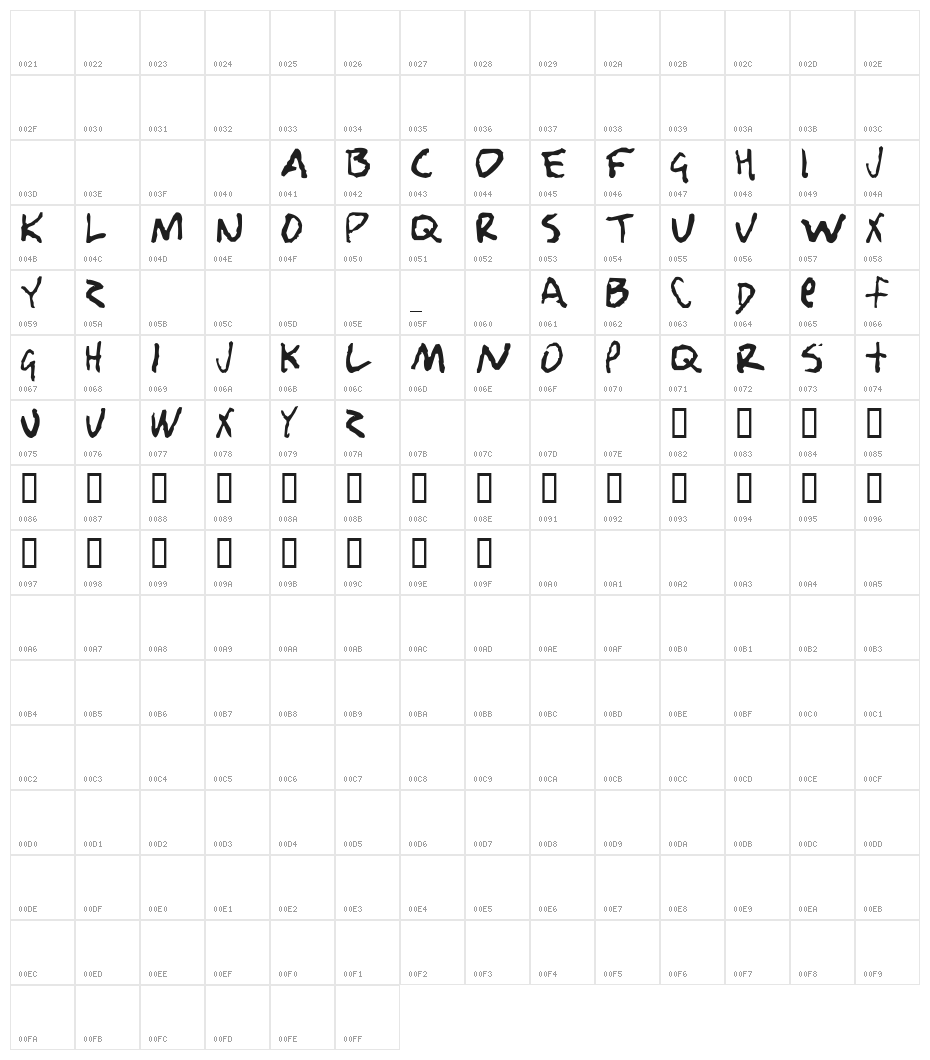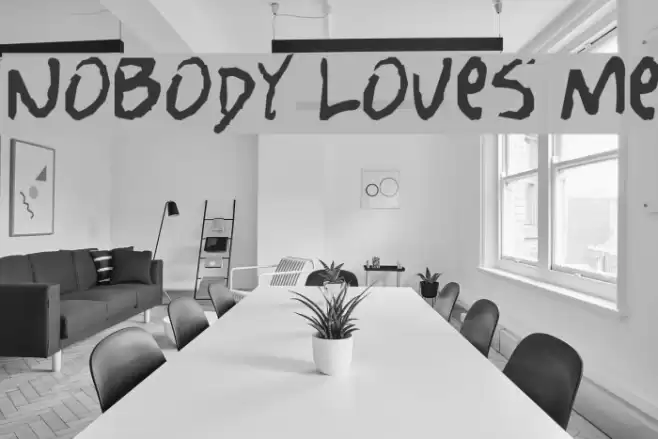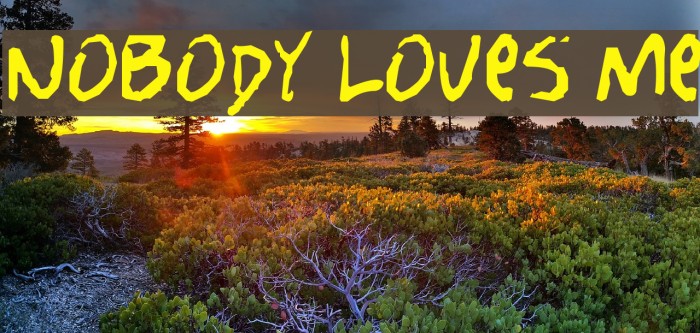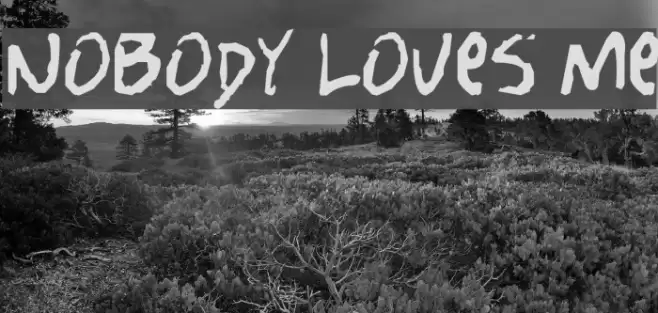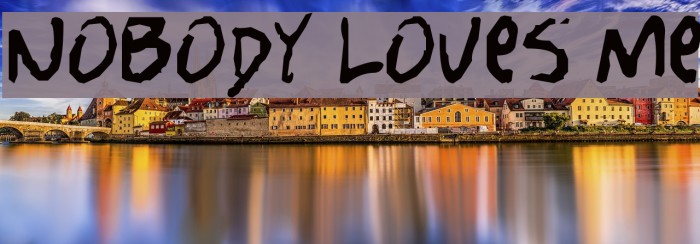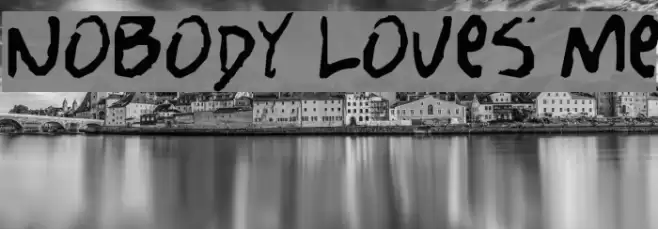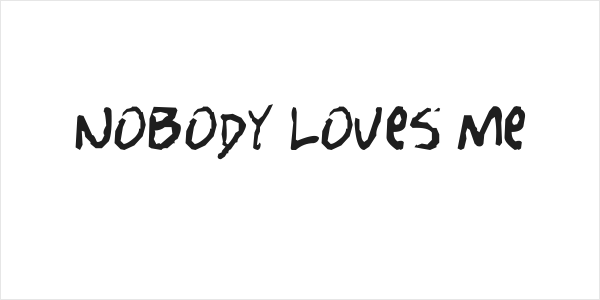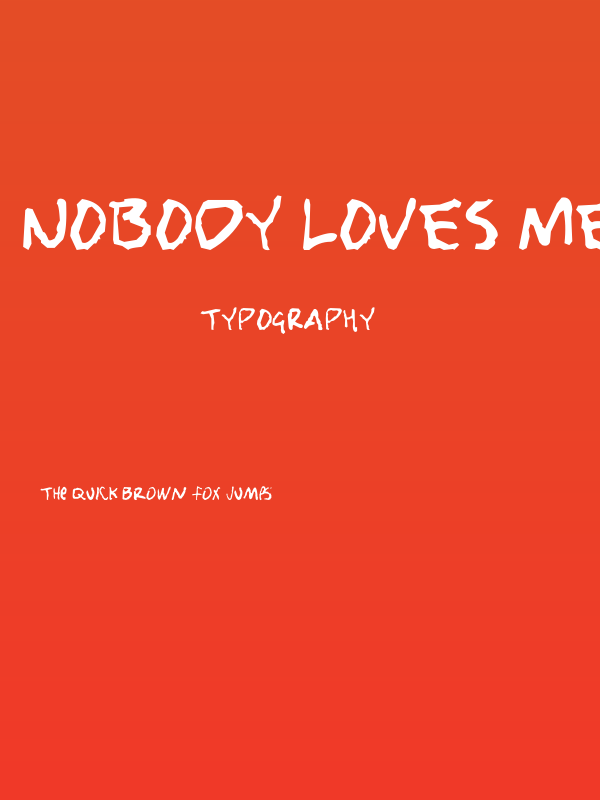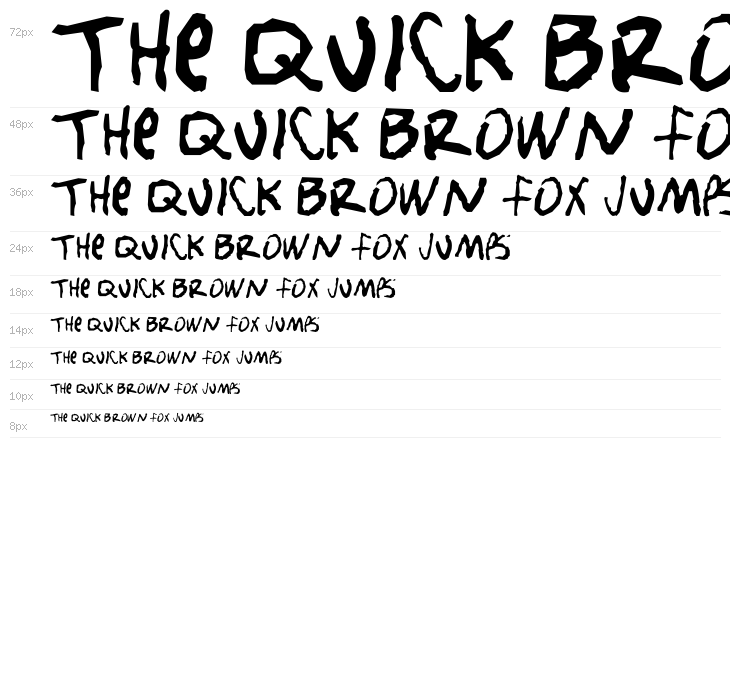
Nobody Loves Me Font
Nobody Loves Me Description
This font features a bold and expressive handwritten style, characterized by its irregular and dynamic strokes. The letters have a rough, textured appearance, giving them a raw and authentic feel. The uppercase and lowercase letters maintain a consistent style, with a slightly chaotic yet artistic flair. The numbers and special characters follow the same aesthetic, ensuring a cohesive look across all elements. This font's unique personality makes it stand out, perfect for projects that require a touch of individuality and creativity.
| Proposed Projects | Ideal for artistic projects, album covers, posters, and any design requiring a personal, creative touch. |